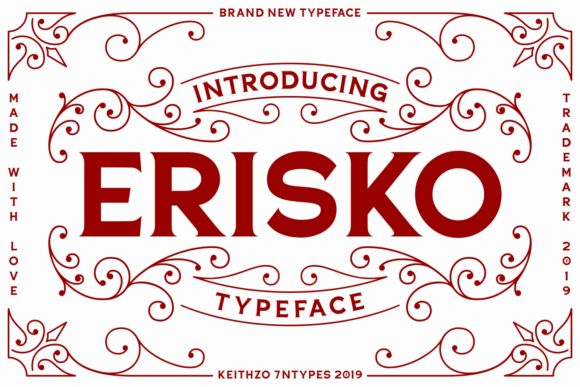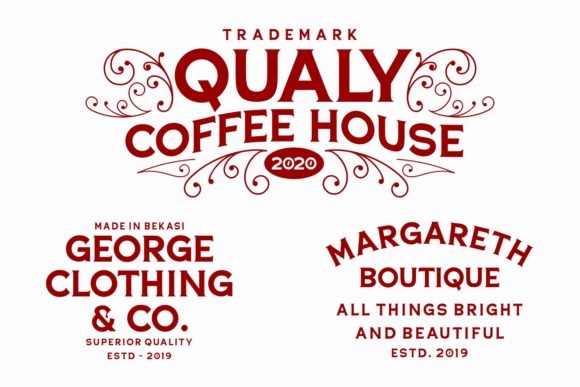
Erisko Font
About Erisko Font
Erisko is a stunning vintage typeface with beautiful and rich ornaments. This must-have font will add a luxurious and dynamic vibe to any design project, be it wedding invitations, social media, greeting cards, and much more!